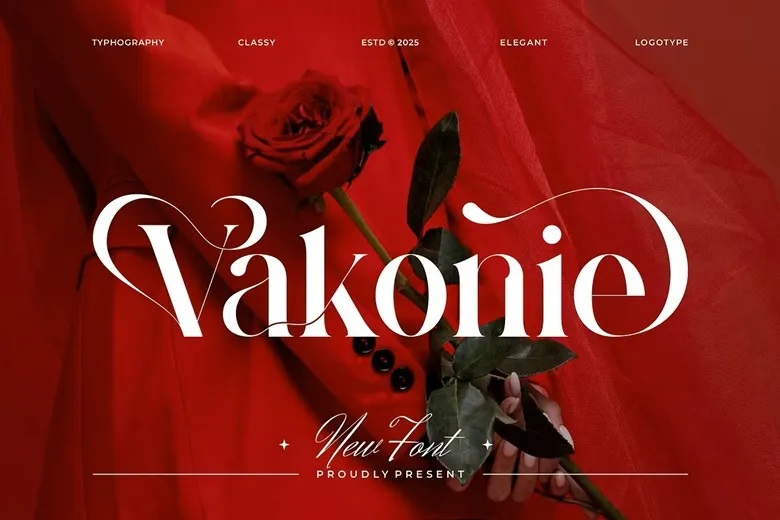
Vakonie Font
Vakonie is a refined, elegant serif font that adds a sense of beauty and dignity to branding and logos. Its classic style makes it a great choice for invitation cards, logos, movie titles, business cards, book covers, brand names, and many other design projects.
Vakonie is a smooth serif font with a sophisticated look. Its elegant ligatures make it a perfect fit for a wide range of projects.
Vakonie Serif Font